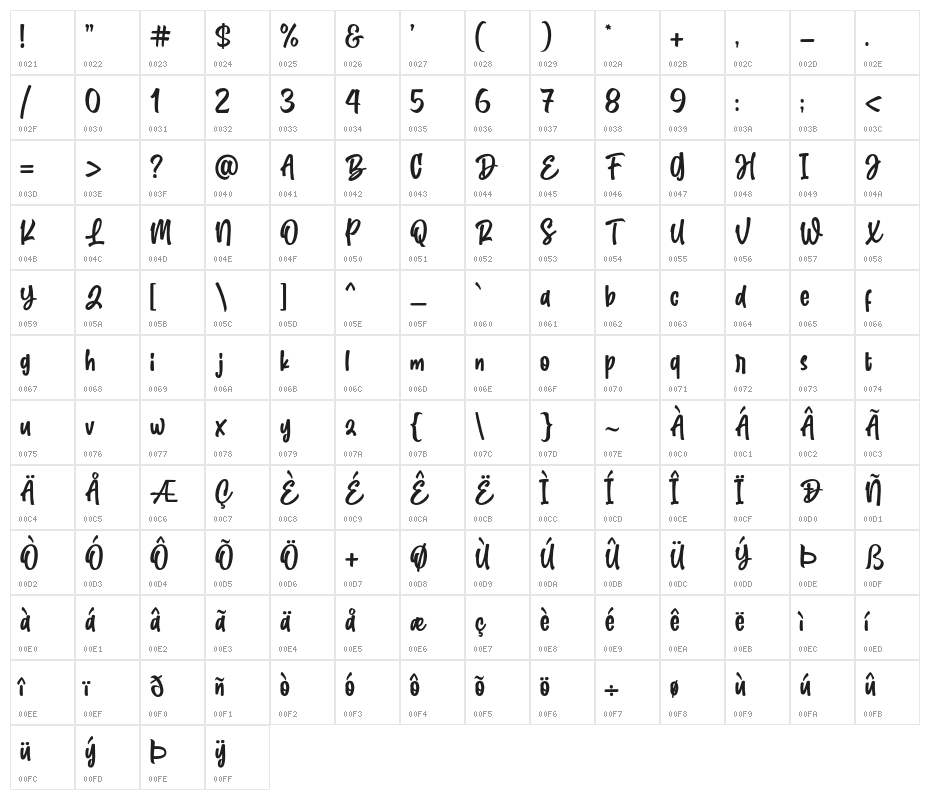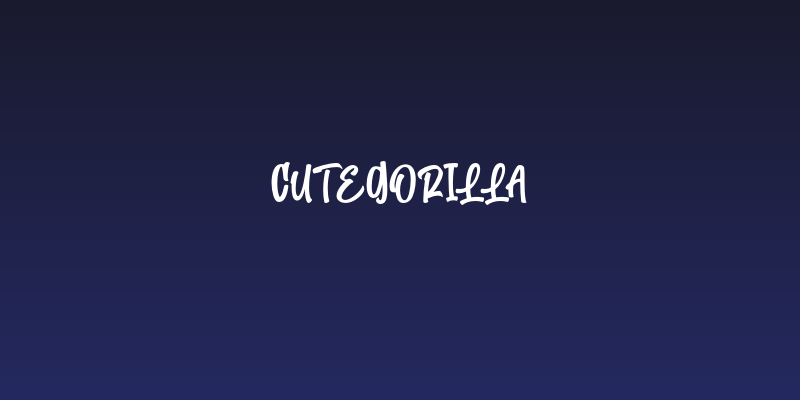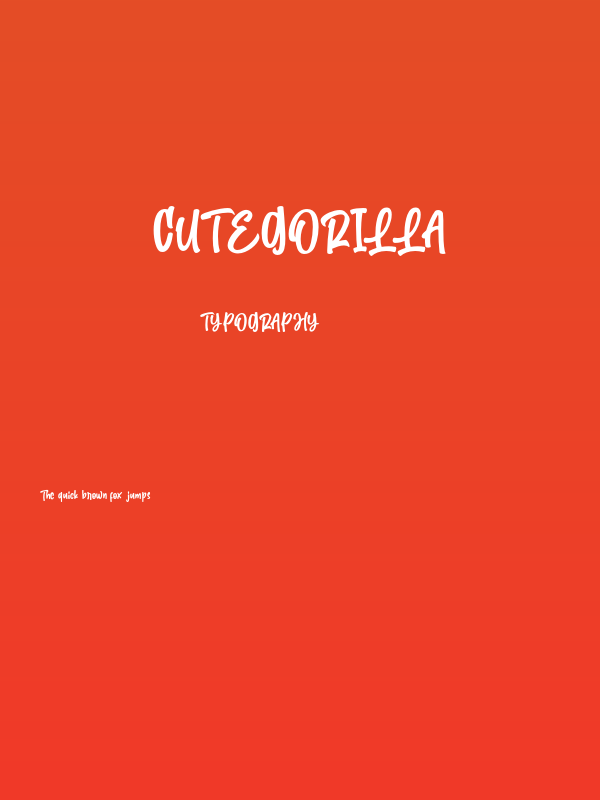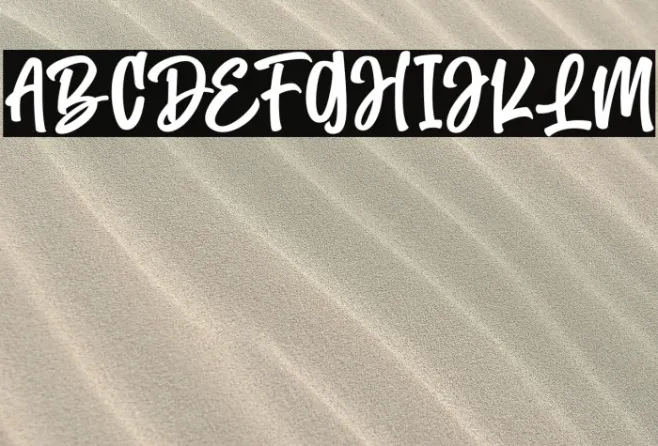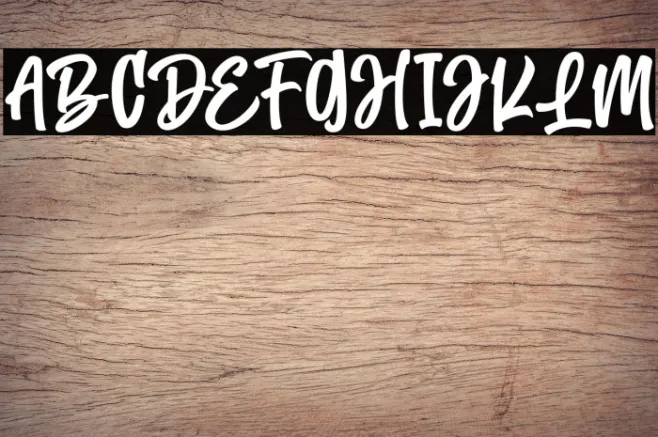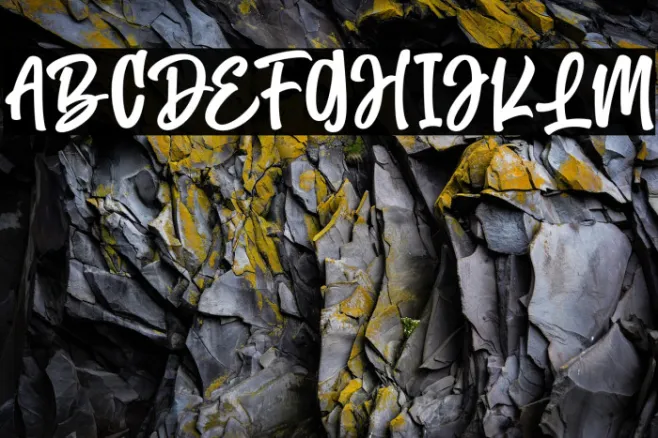
CuteGorilla Font
CuteGorilla Description
This playful and energetic font features a handwritten style with bold, rounded strokes that give it a friendly and approachable feel. The characters are slightly slanted, adding a dynamic and lively touch to the overall appearance. The uppercase letters are bold and prominent, while the lowercase letters maintain a consistent flow, making it suitable for casual and informal designs. The numbers and special characters are crafted with the same playful aesthetic, ensuring a cohesive look across all text elements.
| Proposed Projects | Ideal for children's books, playful branding, greeting cards, and social media graphics. |